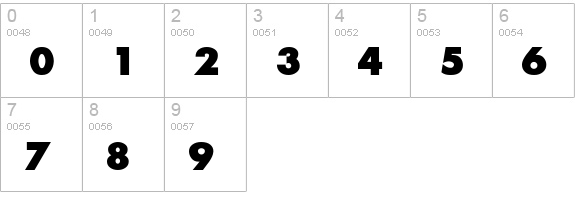
Belmar Font Details
Belmar font is a modern and stylish typeface that exudes elegance and sophistication. With its clean lines and sleek curves, Belmar is perfect for a wide range of design projects, from branding to editorial design. This versatile font is sure to make your text stand out and leave a lasting impression on your audience. The best part about Belmar font is that it is completely free to download at FontsMarket.com. Whether you're a designer looking to add a touch of class to your work or a business owner in need of a fresh new look for your branding, Belmar font is the perfect choice. Don't miss out on this fantastic opportunity to elevate your design projects with this beautiful and timeless font. Download Belmar today and start creating stunning visuals that will captivate and inspire your audience.